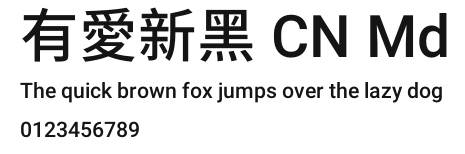
• Font Name: 有愛新黑 CN Md
• Font ID: NOWR: Nowar Neo Sans CN Medium 0.8.0
• Full Font Name: 有愛新黑 CN Medium
• Version: 0.8.0
• Designer: Cyano Hao (character set definition & modification for World of Warcraft); Christian Robertson (Latin, Greek & Cyrillic); Ryoko NISHIZUKA 西塚涼子 (kana, bopomofo & ideographs); Sandoll Communications 산돌커뮤니케이션, Soo-young JANG 장수영 & Joo-yeon KANG 강주연 (hangul elements, letters & syllables); Dr. Ken Lunde (project architect, glyph set definition & overall production); Masataka HATTORI 服部正貴 (production & ideograph elements)
• Manufacturer: Nowar Typeface
About 有愛新黑 CN Md.ttf
有愛新黑 CN Md.ttf is a modern, elegant sans-serif font designed for ultimate readability and visual harmony. Perfect for branding, headlines, web design, and print materials.